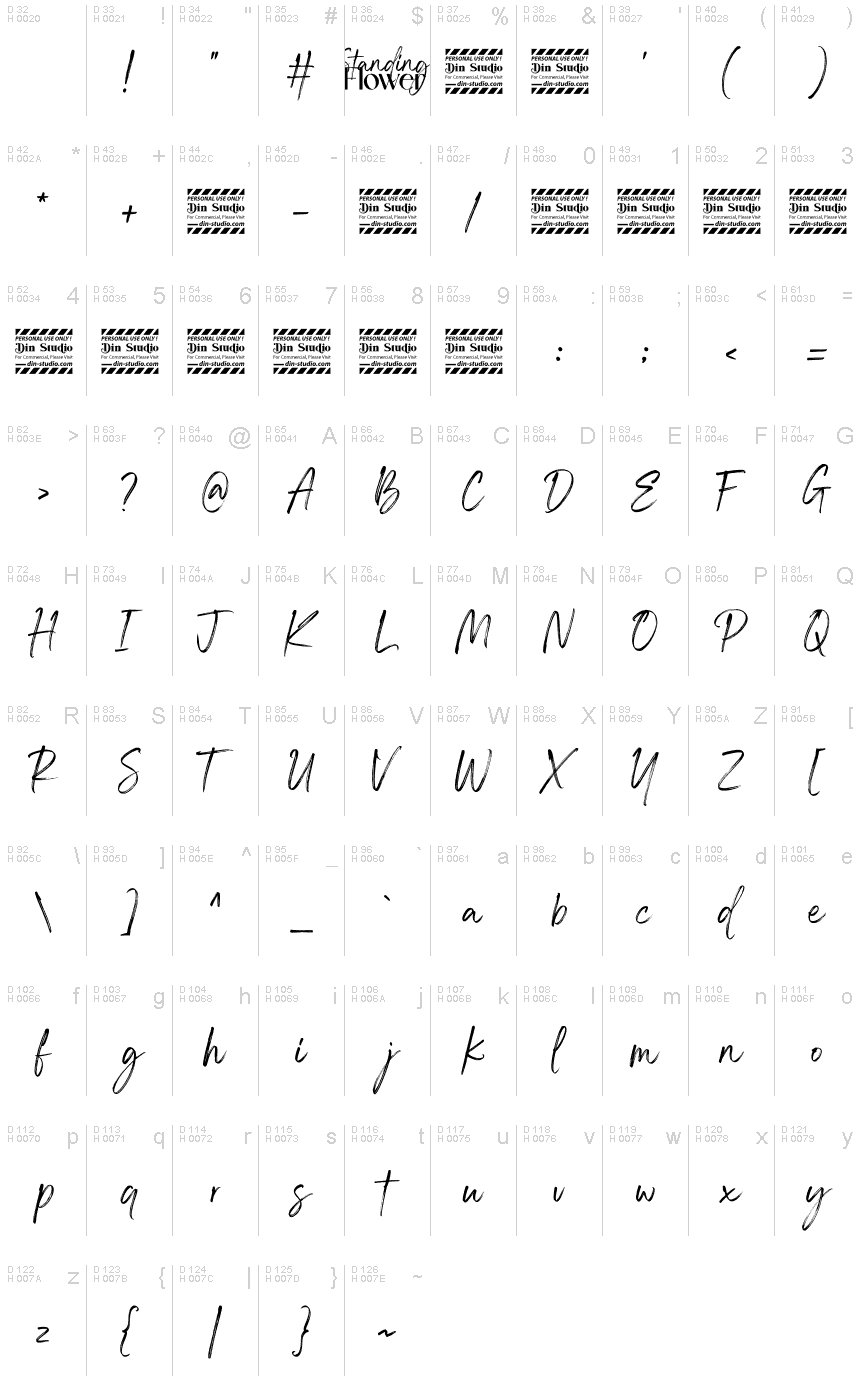
Standing Flower Script Personal
Standing Flower Script, created by Din Studio, is a captivating handwritten font with a marker-style touch. Its semi-light weight gives it a delicate and graceful appeal.
This font is perfect for projects that require a personal and artistic touch, such as wedding invitations, greeting cards, or inspirational quotes. With its flowing strokes and whimsical charm, Standing Flower Script will add elegance and warmth to any design.